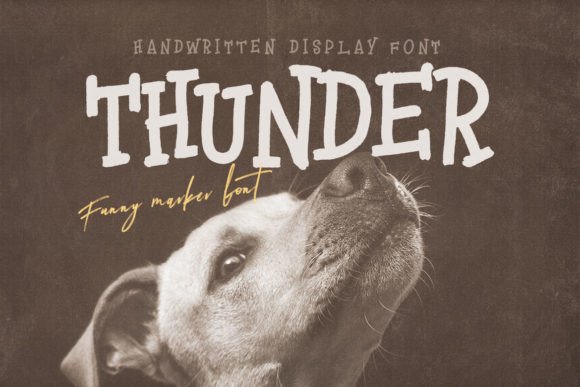
Download Thunder Font for free! Created by JumboDesign and published by Shaya Williams, this serif font family is perfect for adding a unique touch to your designs.